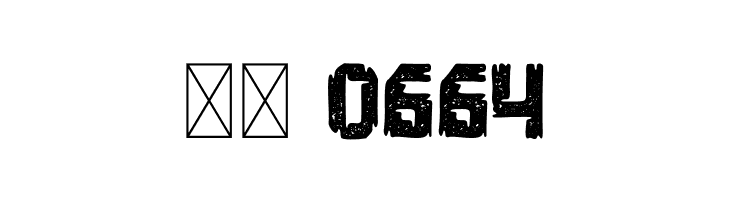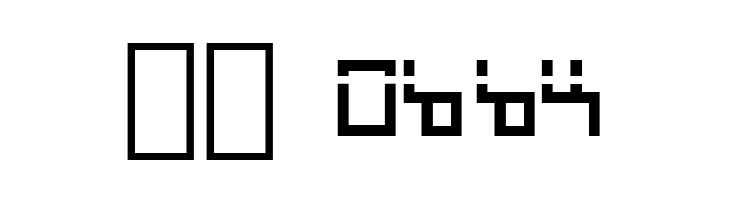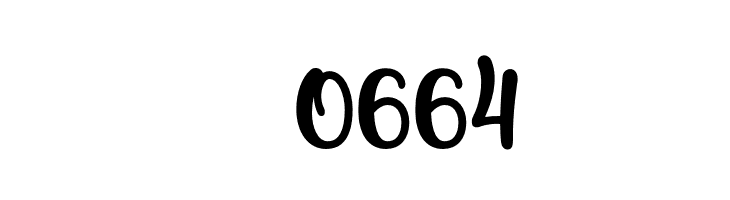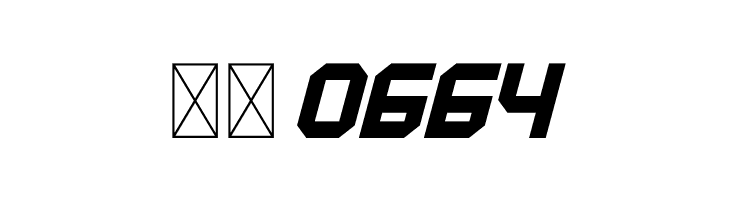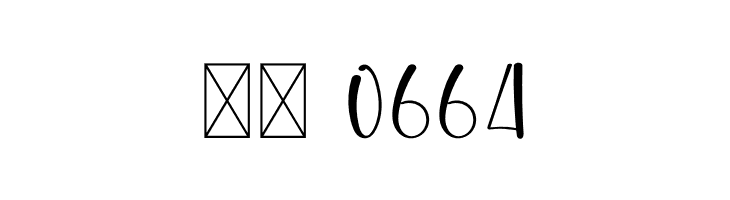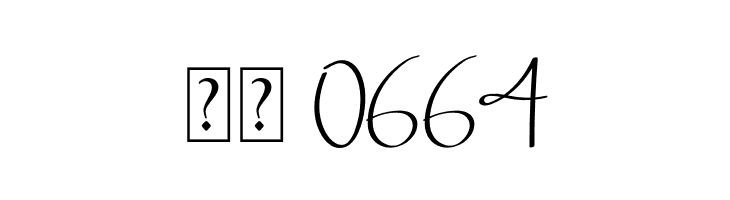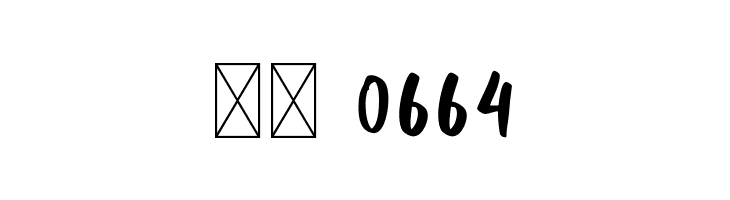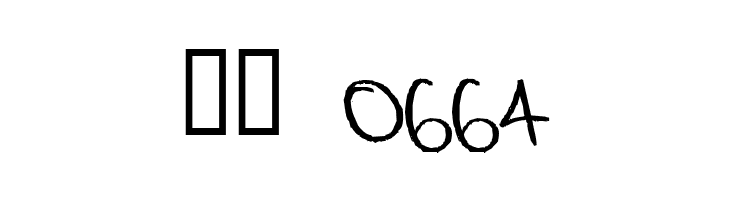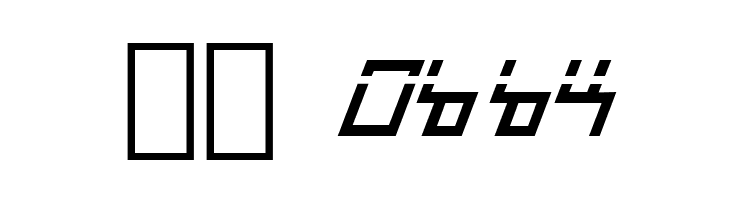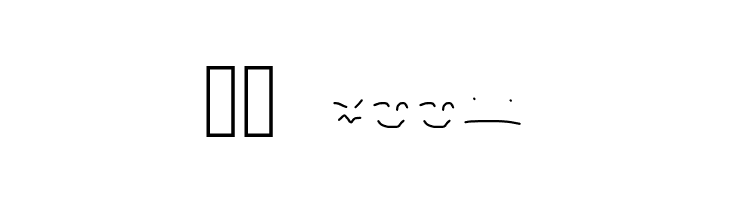
( Commissioned - alterkproject.googlepages.com )
A classic serif font with elegant strokes and balanced proportions.
( Commissioned - alterkproject.googlepages.com )
An elegant italic serif font with smooth curves and sharp serifs.
( Fonts by ingoFonts )
A bold, expressive handwritten font with a smooth, brush-like texture.
( Fonts by Cannot Into Space Fonts )
Expressive, doodle-style font made up of emotive faces and playful sketches.
( Fonts by www.braineaters.com )
A bold, playful serif font with a hand-drawn feel.
( Fonts by Royalclub )
A bold, grunge-style font with a distressed texture and dynamic appearance.
( Fonts by Inermedia Studio )
A lively and playful script font with elegant, flowing cursive letters.
A playful, handwritten font with thin, flowing lines and a whimsical style.
A delicate, flowing script font with elegant curves and interconnected letters.
( Fonts by Gilang Ternadho )
A bold, angular font with a futuristic, tech-inspired design.
A playful and flowing script font with smooth, rounded edges and interconnected letters.
A bold, expressive handwritten font with fluid, connected letterforms.
An elegant, flowing script font with high contrast and modern appeal.
A whimsical, cursive font with a flowing, handwritten style.
A decorative and bold font with playful swirls and flourishes.
A playful and elegant handwritten script font with fluid, connected letters.
( Fonts by Creakokun Studio )
Bold handwritten script with playful, energetic strokes.
A bold, playful script font with a handwritten style.
( Fonts by Denis Denis )
Whimsical and flowing handwritten script font.
( Fonts by billyargel.blogspot.com - Billy Argel )
A lively, handwritten font with irregular strokes and a casual style.
A dynamic, edgy handwritten font with a raw, graffiti-like style.
( Extram Studios - Lewis Bauer )
A pixelated, retro-style font with a blocky, 8-bit aesthetic.
( Fonts by Aquariid Design )
Bold, playful handwritten script with connected letters.